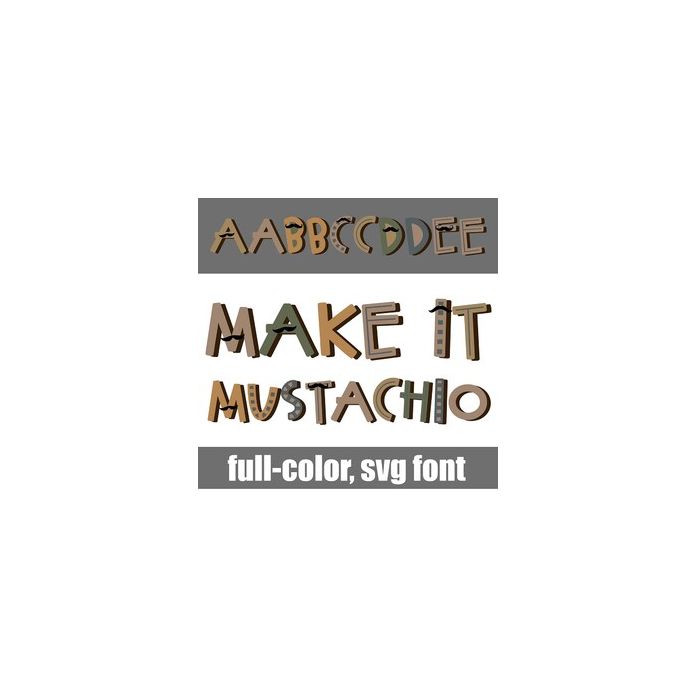
This full-color font features mustaches on the uppercase of whimsical, colorful blocky letters. There is an alt case w/ additional colors you can access through your system or Silhouette's glyph map.